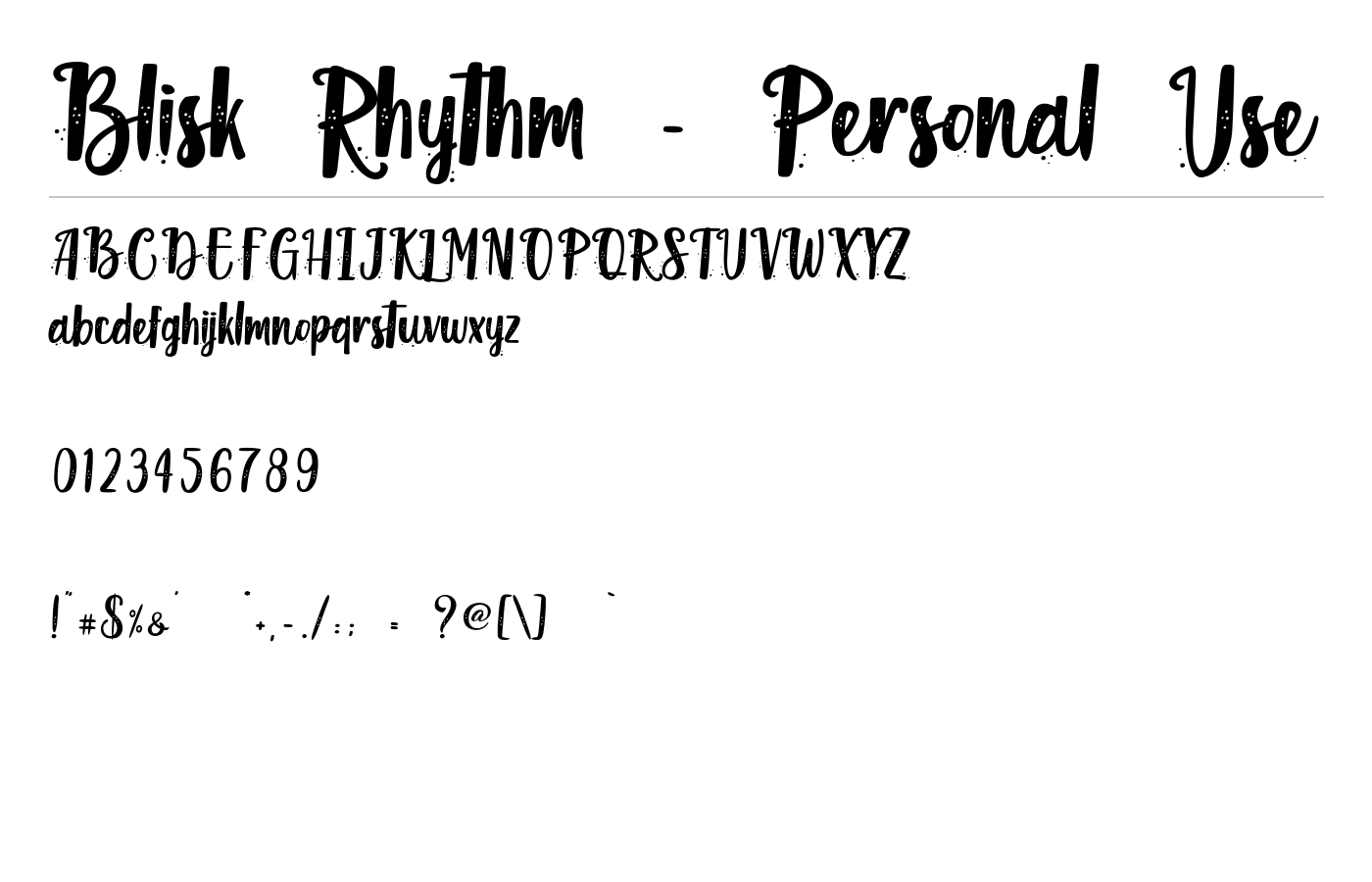
Blisk Rhythm is a playful and artistic script font with a distinct handwritten feel, featuring bold strokes and lively, slightly irregular shapes embellished with scattered ink splatters. Its tall, narrow letterforms with high contrast and casual flair evoke creativity and fun, making it ideal for personal projects, invitations, branding, and any design seeking a youthful, expressive touch. This font works well in headlines or logos where a unique, informal vibe is desired.
Blisk Rhythm - Personal Use Font
About Blisk Rhythm - Personal Use Font
| Font family | Blisk Rhythm - Personal Use Font |
| Designer | Typhoon Type - Suthi Srisopha |